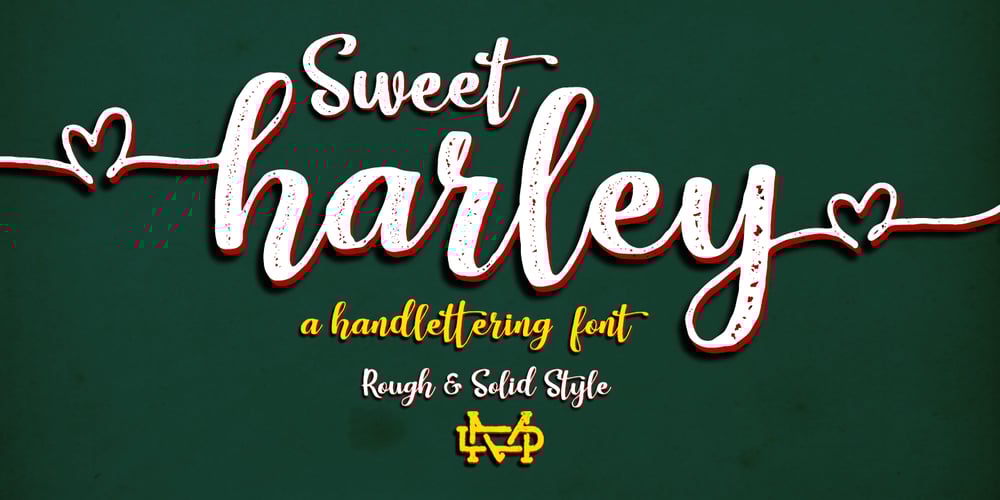
Sweet Harley Script
Sweet Harley Script font
Sweet Harley Script Font Family was designed by Suandana ipandemade and published by madeDeduk. Sweet Harley Script contains 2 styles and family package options. Really excited to introduce Sweet Harley Script, a beautiful hand lettering font! Sweet Harley is perfect for poster design, book covers, merchandise, fashion campaigns, newsletters, branding, advertising, magazines, greeting cards, album covers, quote designs and more.Features UPPERCASE lowercase Number & Symbol International Glyphs Alternative lowercase Ligature If you need anything else just shoot me on email at: dedukvic@gmail.comHappy designing.